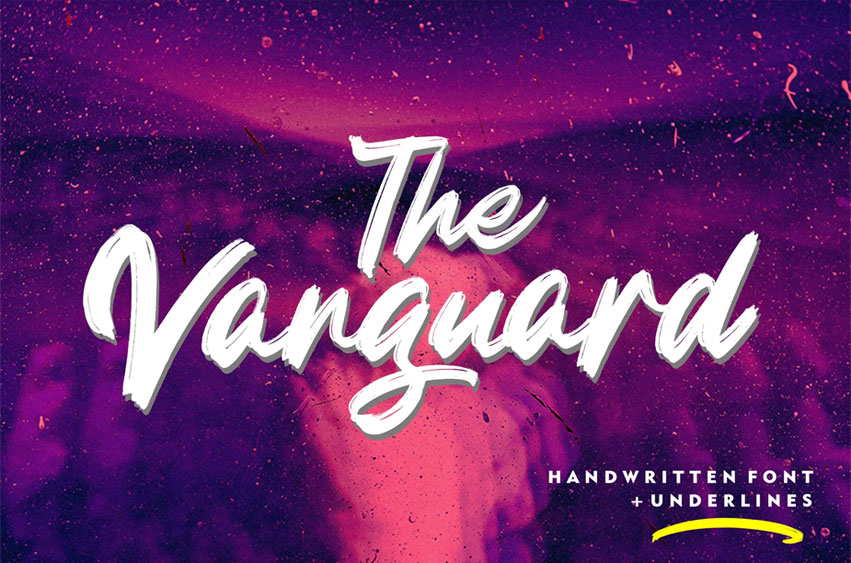
The Vanguard Font
The Vanguard Font is a handwritten font specially designed for a cool textured font with a bold body tone and an eye-catching texture. This is a modern logo style.
The Vanguard also has tons of alternatives, and bonus underscores that can be used in each sentence. It will look perfect in every design.Suitable for use in design titles such as invitations, name boards, book titles, stationery designs, quotes, branding, logos, greeting cards, packaging designs, posters, and more.